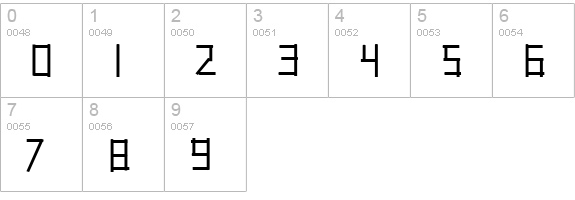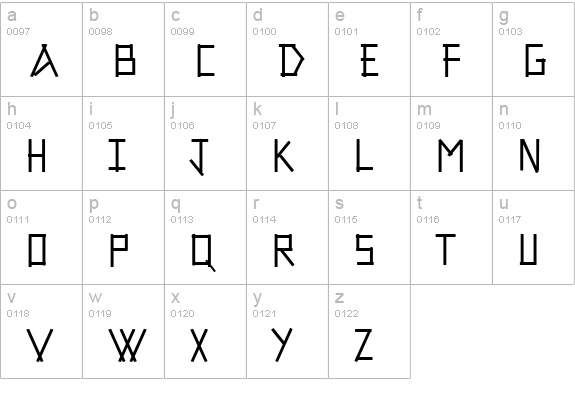
TapedUp Font Details
Introducing TapedUp font, a captivating typeface that effortlessly combines the raw energy of street art with a touch of modern sophistication. This unique font offers a distinctive, hand-drawn style that will bring a dynamic and edgy vibe to any design project. TapedUp font features bold, expressive letterforms that appear as if they have been meticulously constructed with masking tape. The irregular strokes and imperfect lines give this font an authentic, DIY feel, perfect for conveying a sense of urban creativity. Whether you're working on a graffiti-inspired poster, a rebellious album cover, or a cutting-edge logo, TapedUp font will make your designs stand out from the crowd. Its versatile nature allows it to be used for both headlines and body text, ensuring that your message is delivered with impact and clarity. What's even more exciting is that TapedUp font is available for free download exclusively at FontsMarket.com. This means that you can unleash your artistic vision without breaking the bank. With just a few clicks, you can access this incredible font and start creating eye-catching designs that will leave a lasting impression. Don't miss out on the opportunity to add TapedUp font to your font library. Download it now and let your creativity run wild. Whether you're a professional designer or an aspiring artist, this font will inspire you to push boundaries and explore new artistic horizons. Get ready to make a bold statement with TapedUp font, the font that sets you apart from the rest.